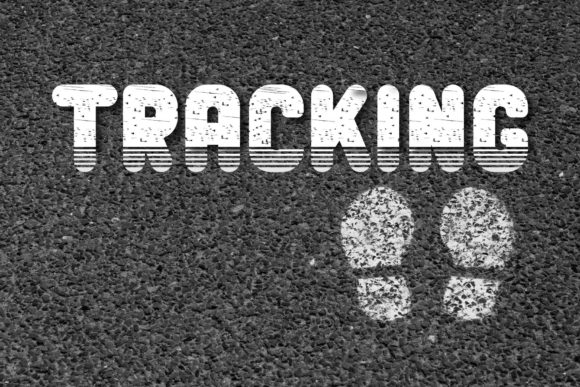
Welcome to the world of visual intrigue, where your words take center stage, dressed in the captivating attire of Tracking Font, a display font family born from the creative forge of Designvector10. Tracking Font is not just a collection of letters; it's an ensemble of characters, each possessing a personality that leaps off the screen, demanding attention and leaving an indelible mark on the minds of your audience.
Immerse yourself in the world of Tracking Font, and discover a symphony of styles that cater to every creative whim. With its bold and sharp demeanor, Tracking Font commands attention, transforming your website copy into a visual masterpiece. Watch as your words dance across the screen, each character a stroke of brilliance, captivating your audience and urging them to delve deeper into your message.
Let Tracking Font be your visual ambassador, conveying your message with an air of sophistication and confidence. Unleash your creativity and explore the endless possibilities that await you. Craft posters that demand attention, flyers that ignite curiosity, and print designs that leave a lasting impression.
Tracking Font is more than just a font; it's an experience. A journey into the realm of visual storytelling, where your words are transformed into works of art. Embrace the power of Tracking Font, and watch as your website copy takes on a life of its own, captivating and enchanting your audience, leaving them spellbound by your message.